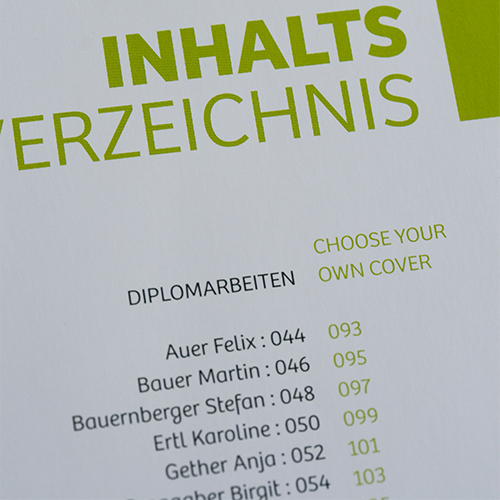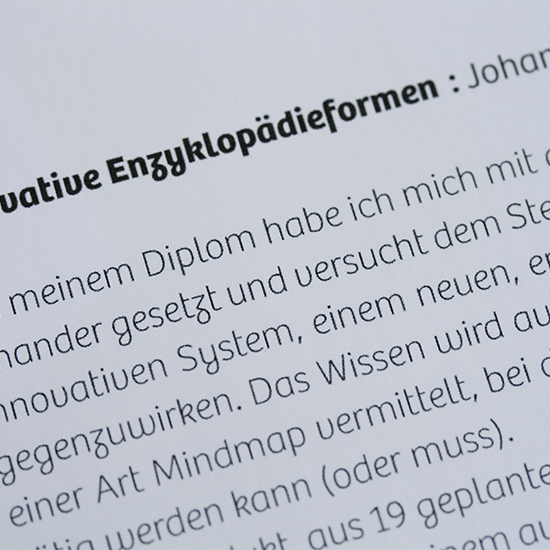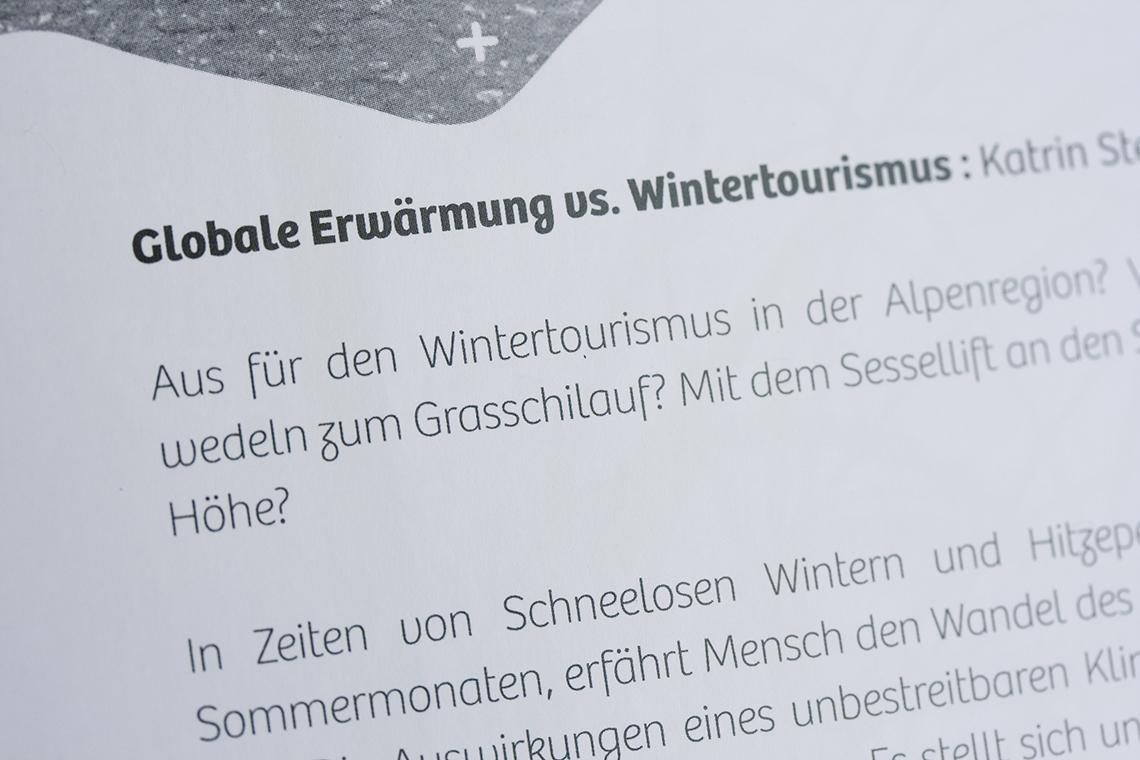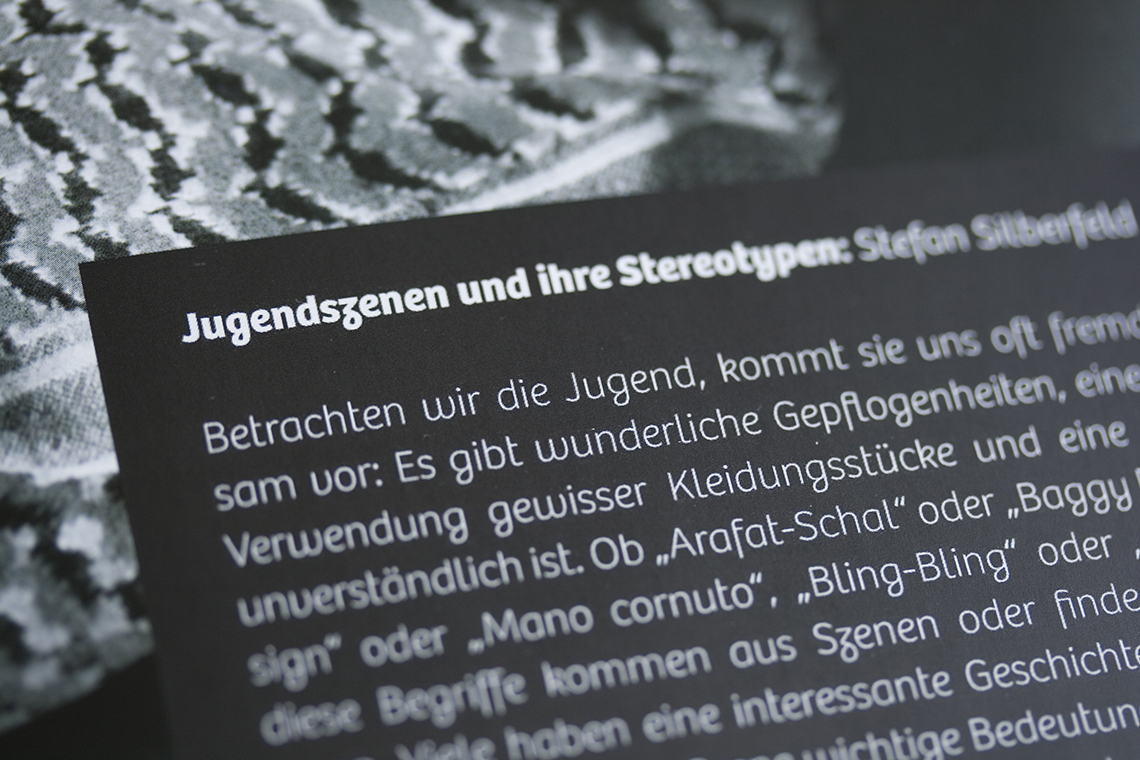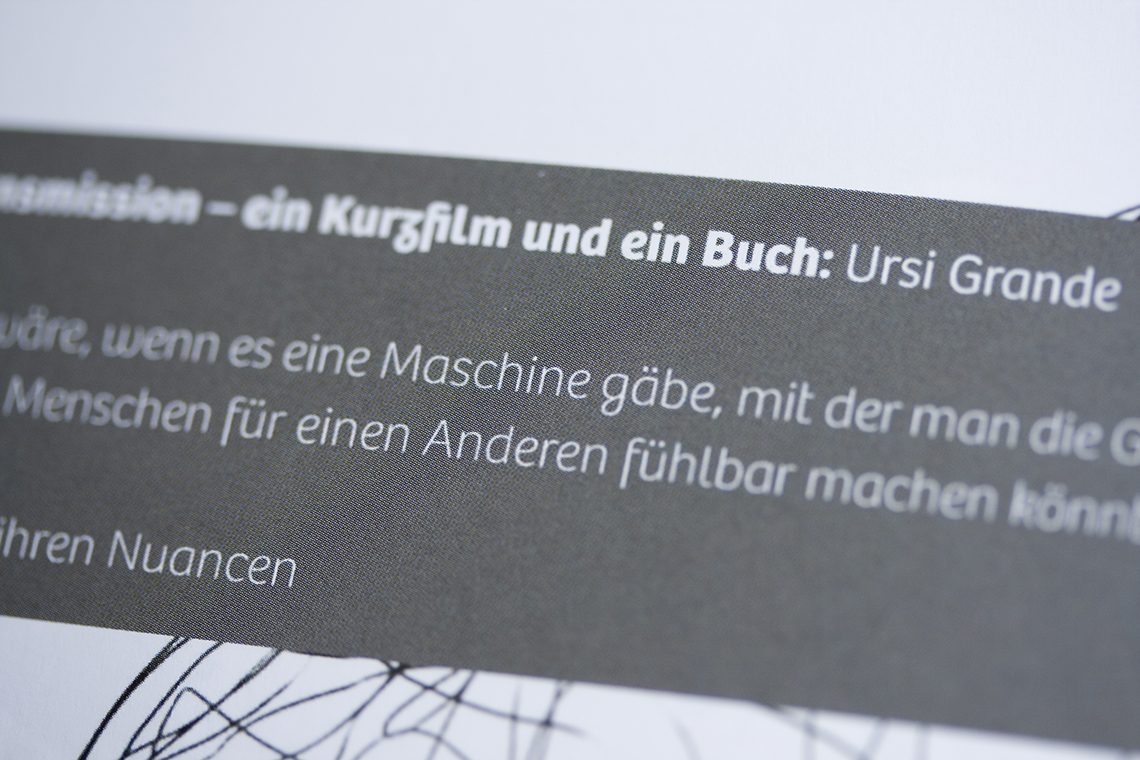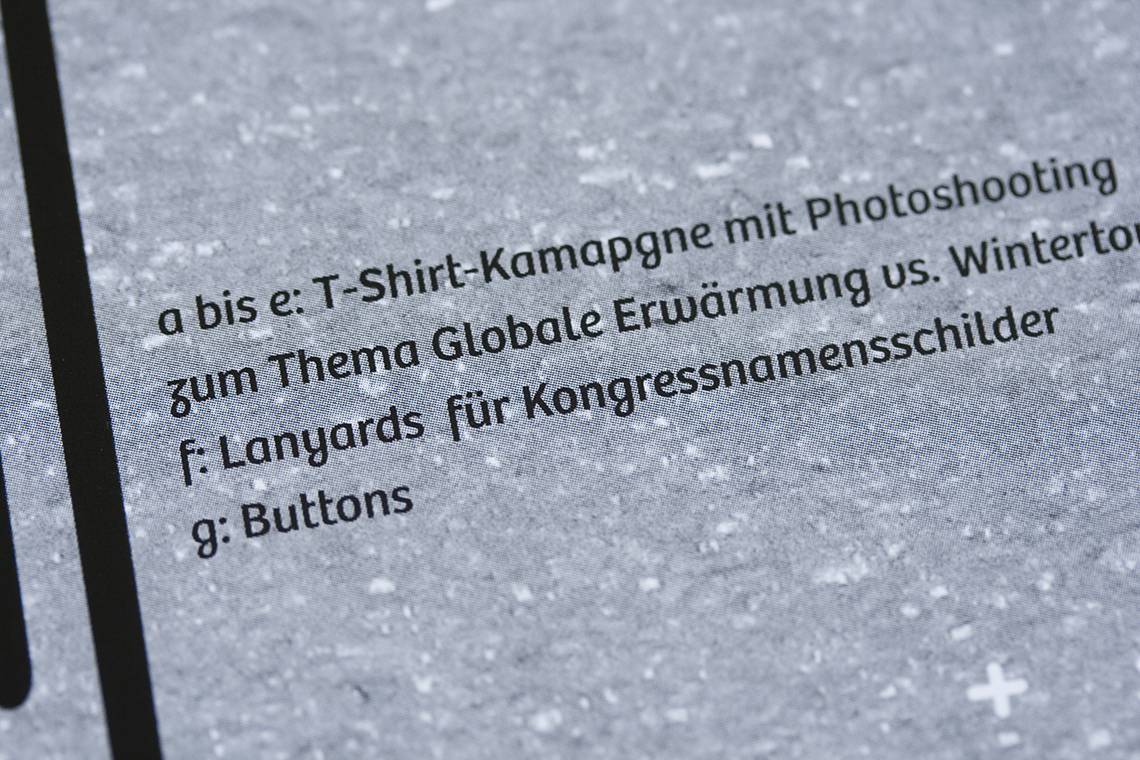
Die Graphische
Bree in use in the 2010 student final year catalogue of the Austrian design School Die Graphische
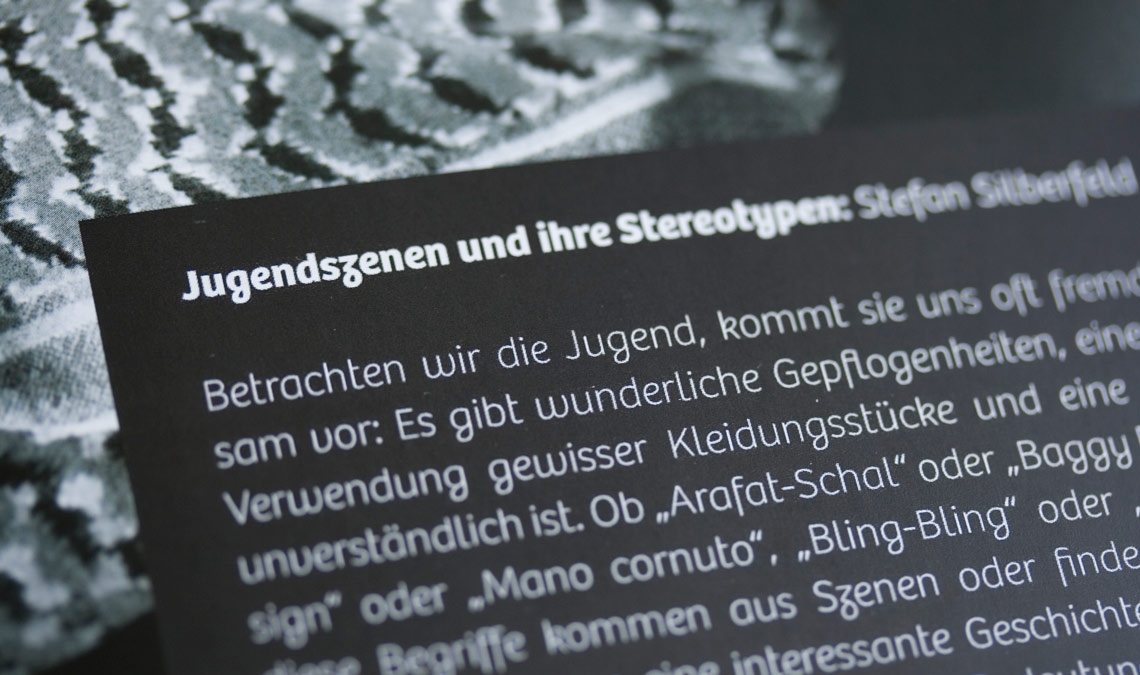
Bree in use in the 2010 student final year catalogue of the Austrian design School Die Graphische
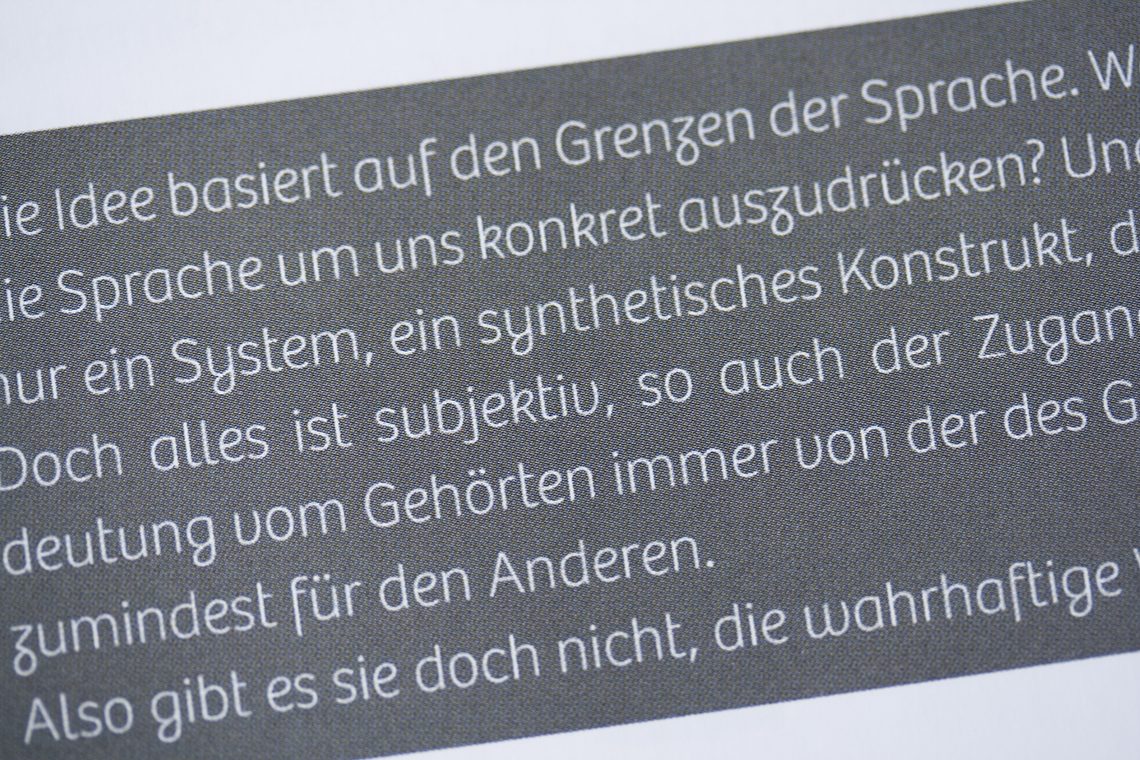
The students at the Austrian design school “die graphische” in Vienna chose our type family Bree for their final year catalogue showing the student’s design work. Bree is nicely used throughout the book for short texts, headlines, and captions.